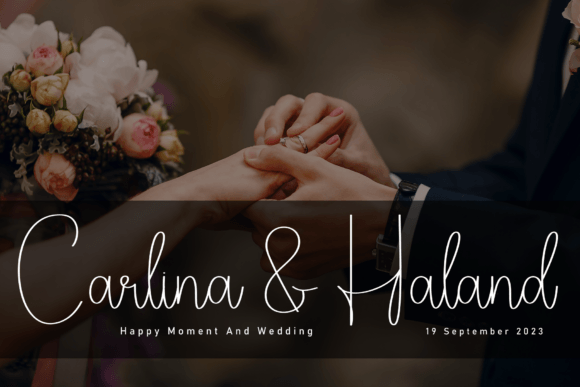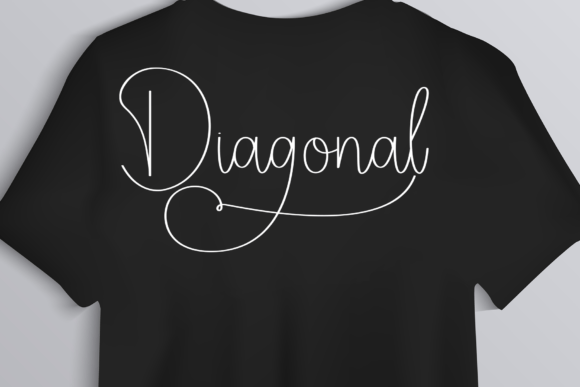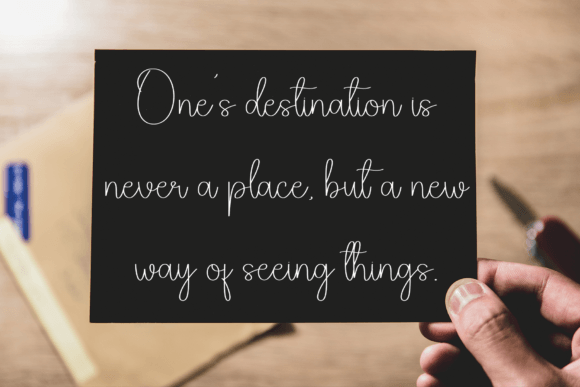
Introduction to Blackyard Font
Blackyard is a sweet and friendly handwritten display font.
Cute and fun, this font is ideal for writing wedding invitations, cards, or any other design that might need a fun touch .
Key Features of Blackyard Font